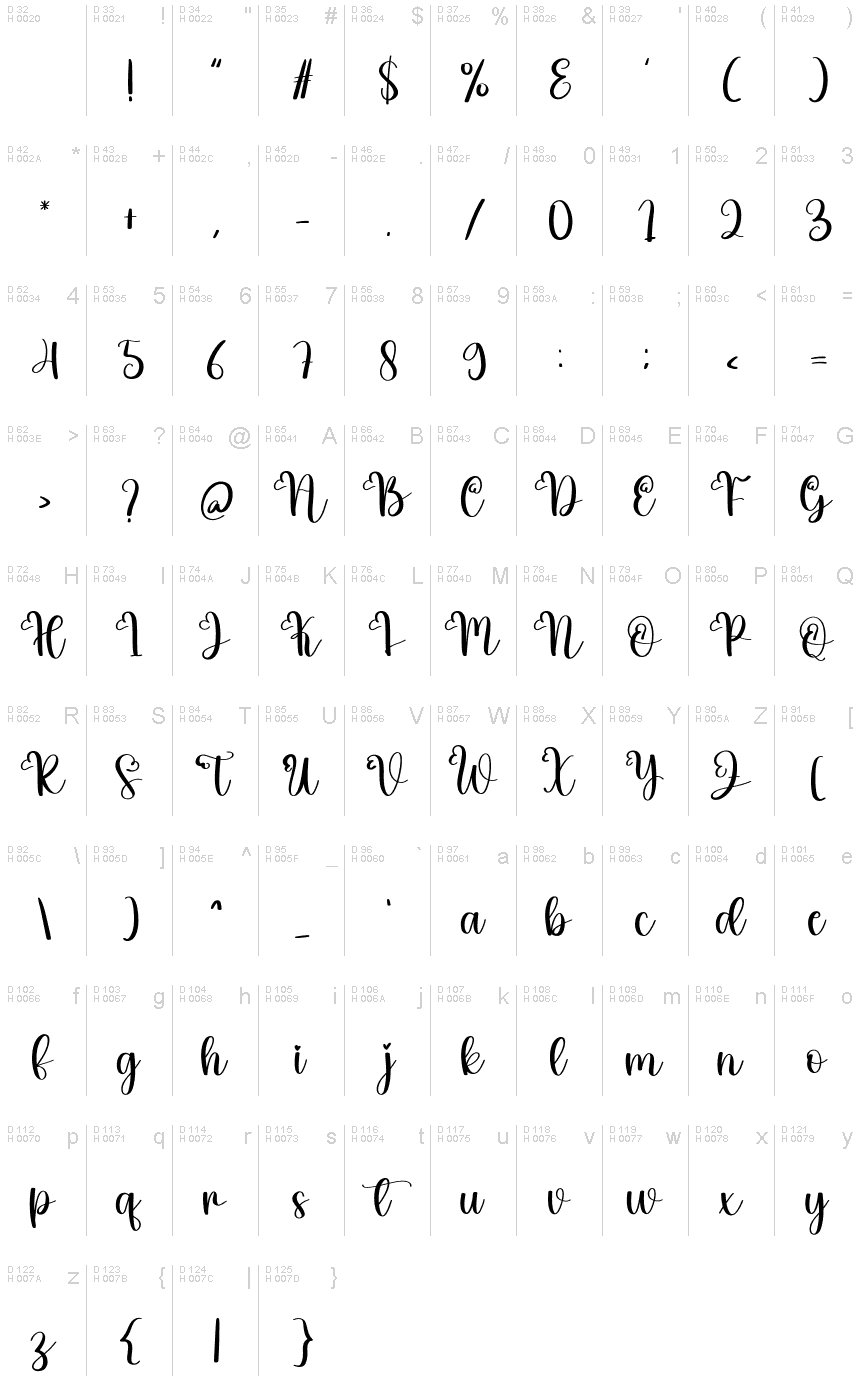
Vacation Valentine
Vacation Valentine is a stunning calligraphy font designed by scratchones that will make your projects stand out from the rest. With its elegant and flowing style, this font is perfect for any project that requires a touch of sophistication and class. The semi-bold font width makes it ideal for designing wedding invitations, greeting cards, or any other special occasion where you want to add a personal touch. Additionally, its versatility in pairing with both serif and sans-serif fonts ensures that it can be used for branding projects, social media posts, or even product packaging. Bring some love to your designs with Vacation Valentine!
the latest style letters are perfect for wall displays, wedding invitations, social media post logos, advertisements, product packaging, product designs, labels, photography, watermarks, invitations, stationery, and any project that requires taste handwriting.